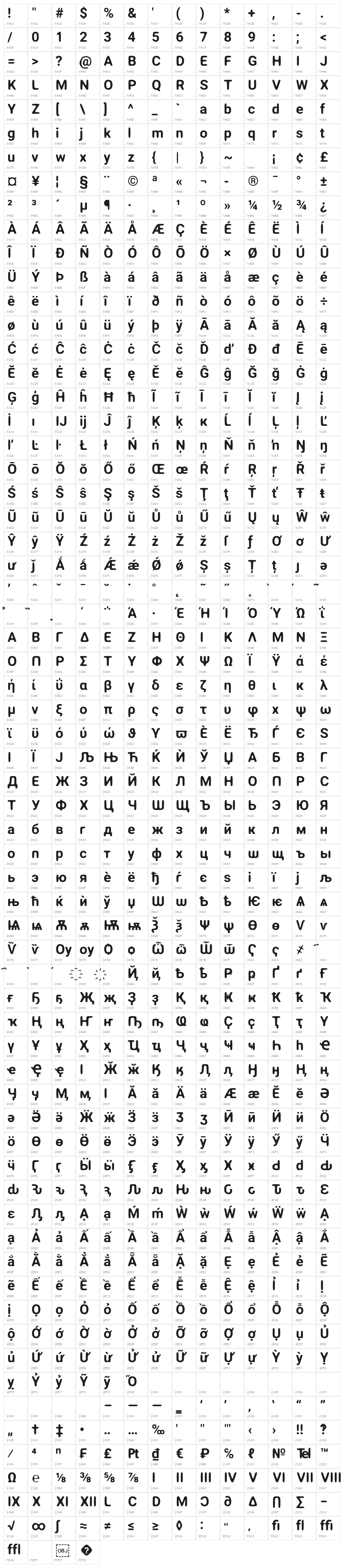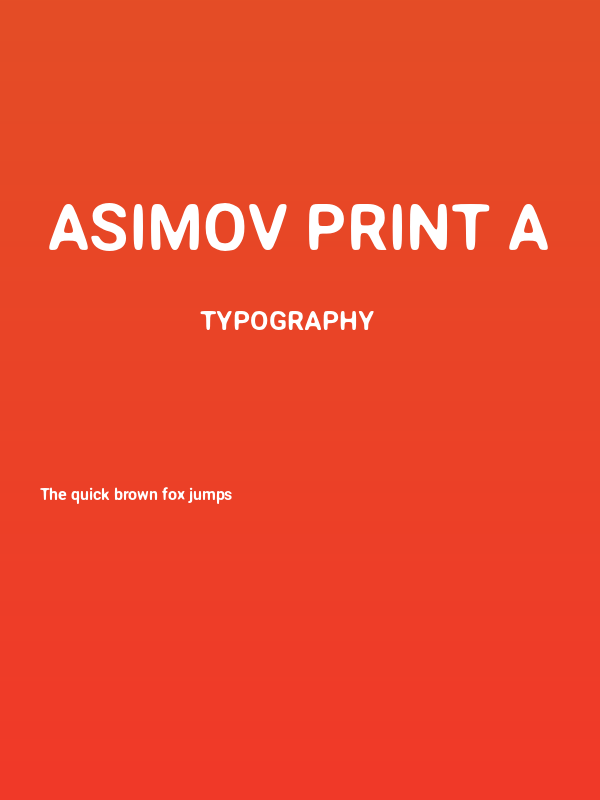
Asimov Print A Font
Asimov Print A Description
This font features a rounded, friendly appearance with smooth curves and a consistent stroke width. The characters are well-balanced, offering a modern and approachable look. The uppercase and lowercase letters maintain a uniform style, with slightly rounded edges that soften the overall aesthetic. The numerals are clear and easy to read, matching the style of the alphabetic characters. Special characters are included, maintaining the same rounded and approachable design. This font is versatile, suitable for both digital and print media, providing a clean and contemporary feel.